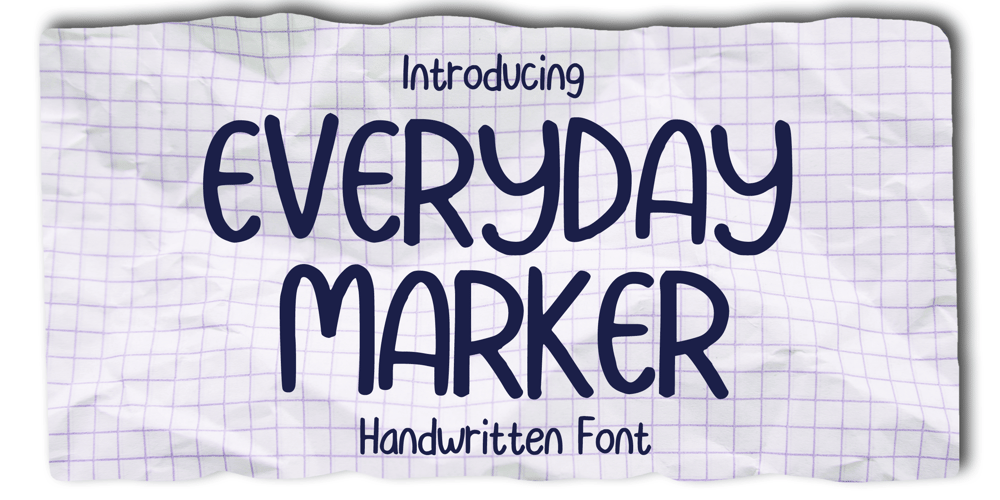
Everyday Marker
Everyday Marker font
Everyday Marker Font Family was designed by Gabriel Valentinus and published by Mvmet. Everyday Marker contains 1 styles and family package options. Everyday Marker is a fun daily use and suitable for everyday use marker font. It will elevate a wide range of design projects to the highest level. You can use this font for many design ideas such as stickers, t-shirt designs, amazing logo designs, magazine or book covers, comics, cartoon drawings, and many more. This font will add a super cool touch to your designs!